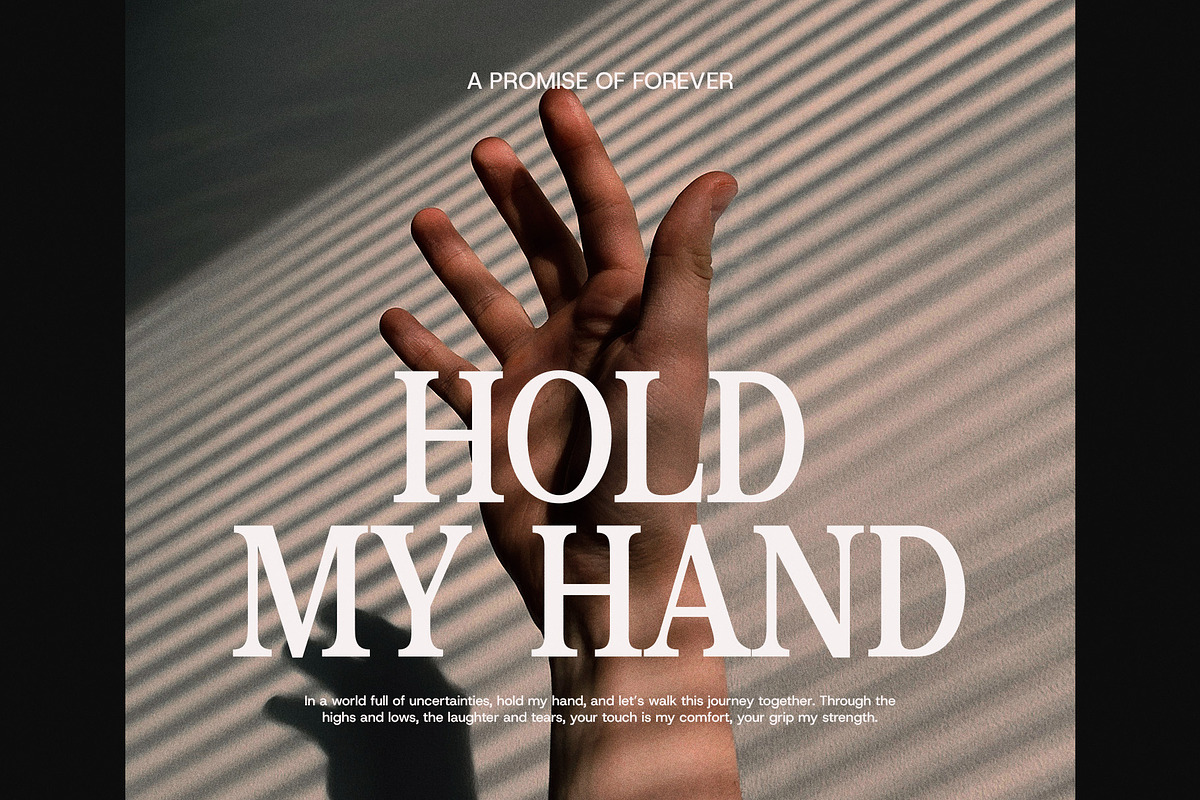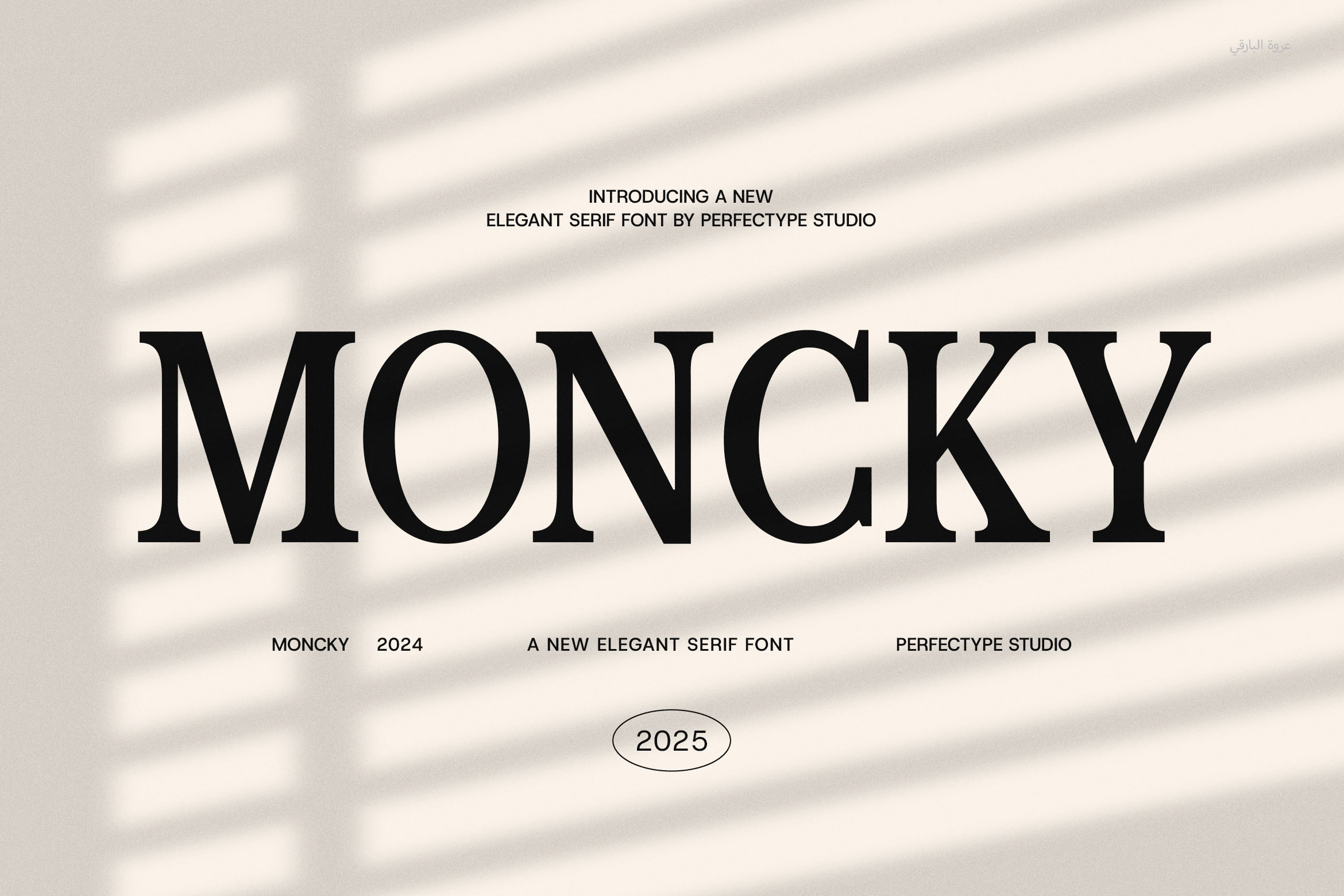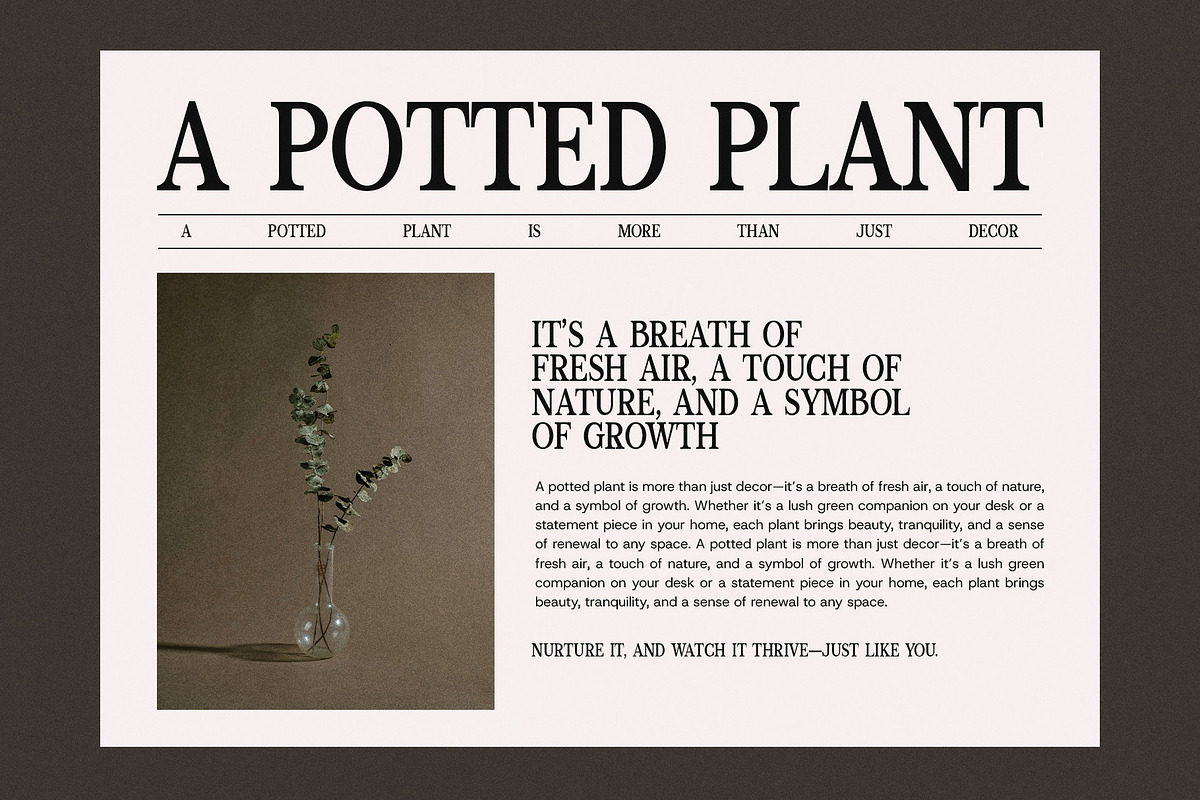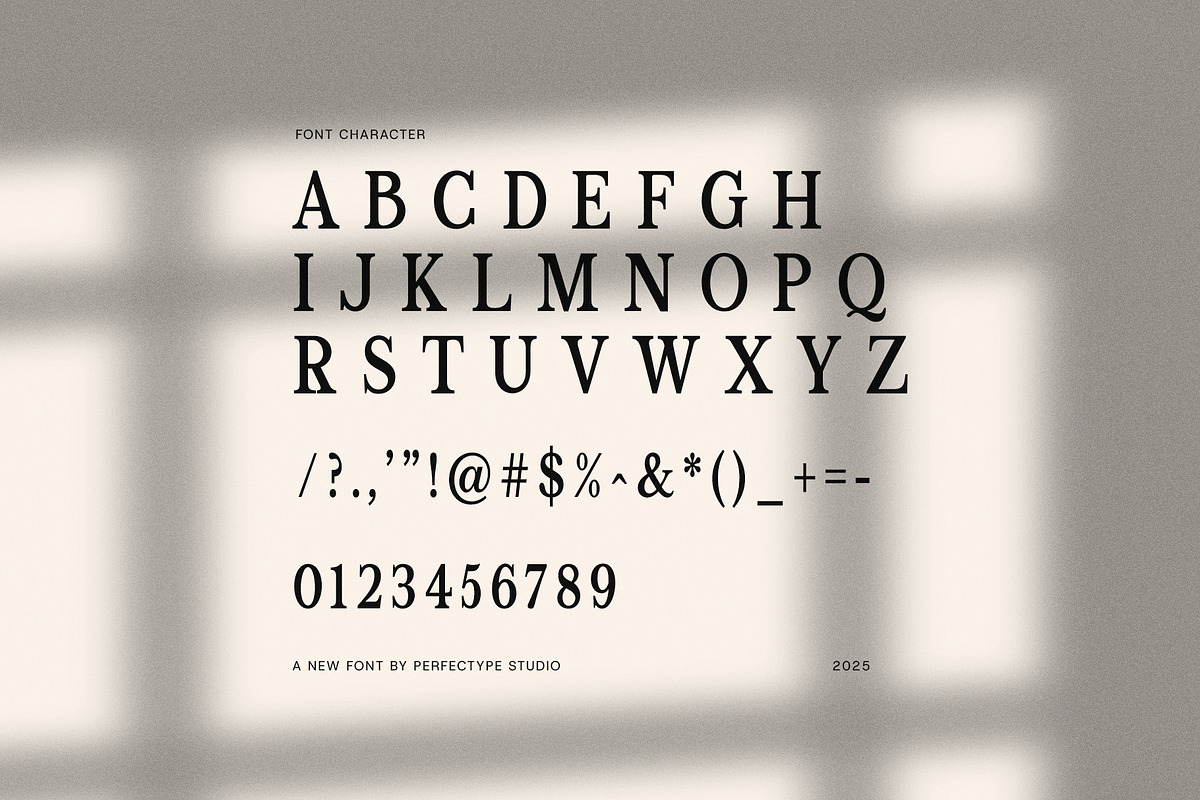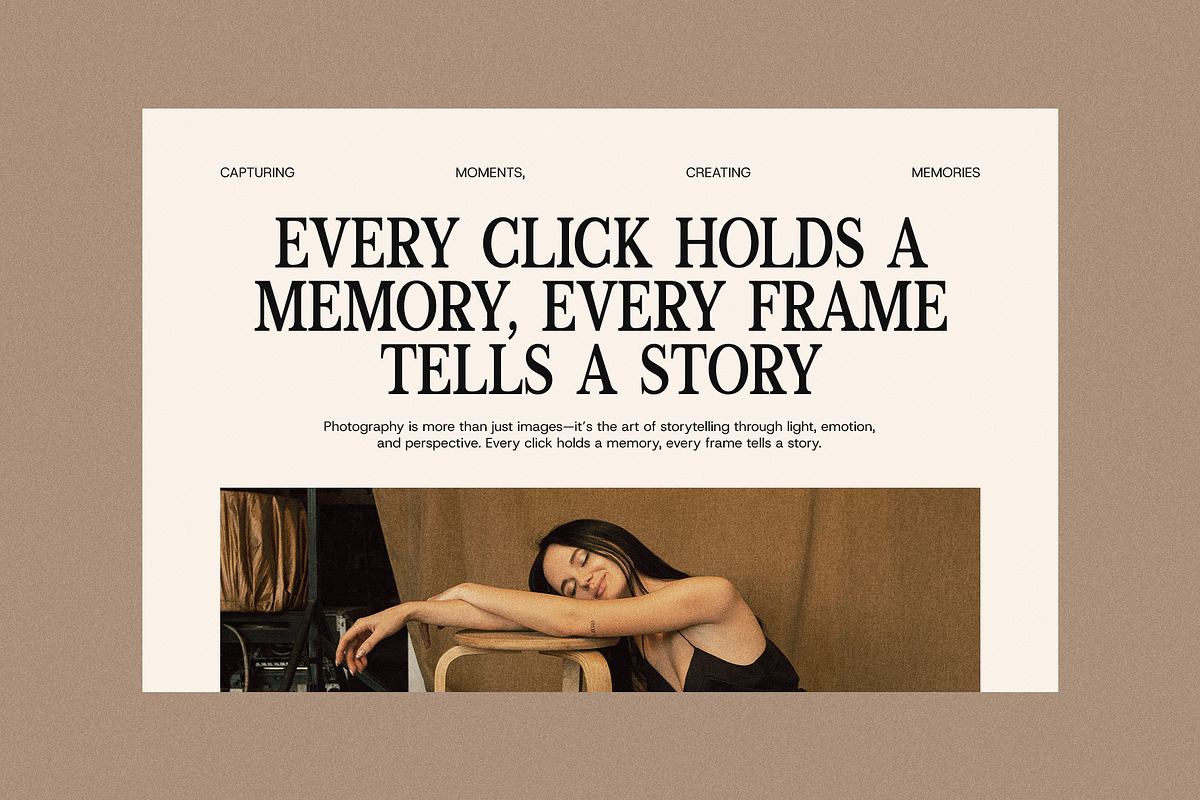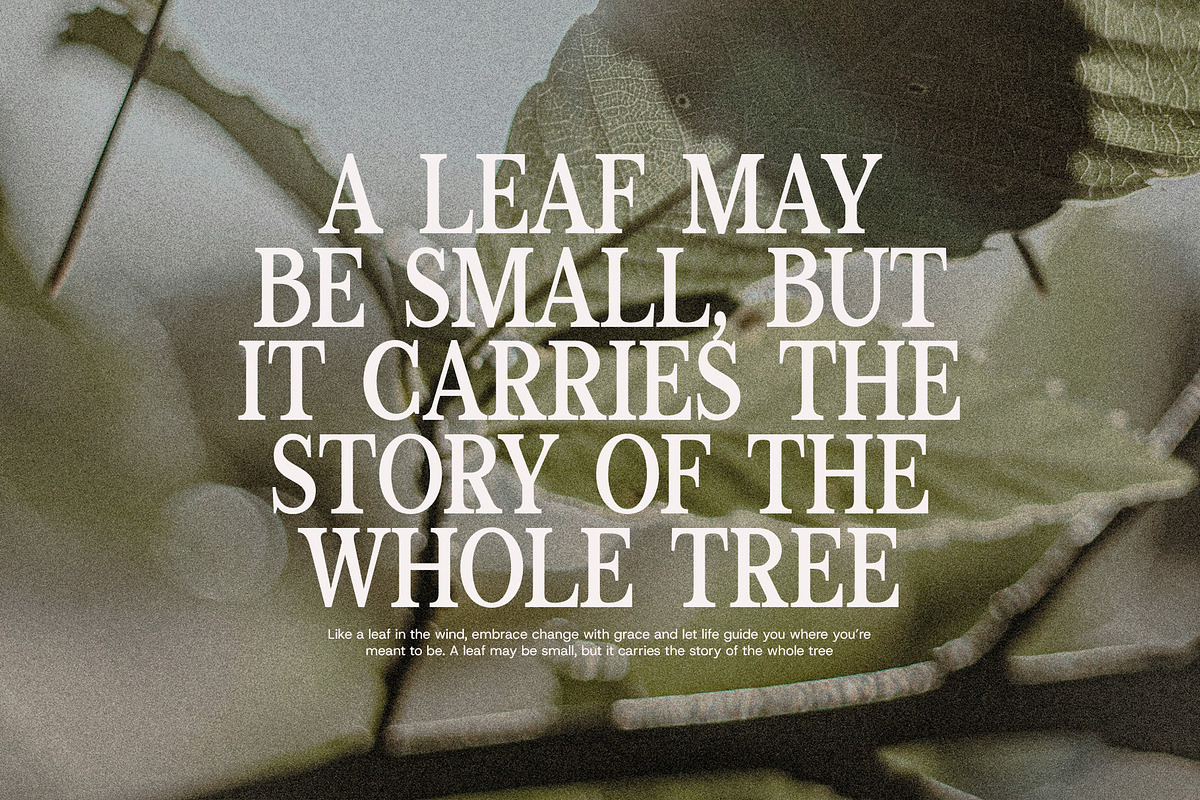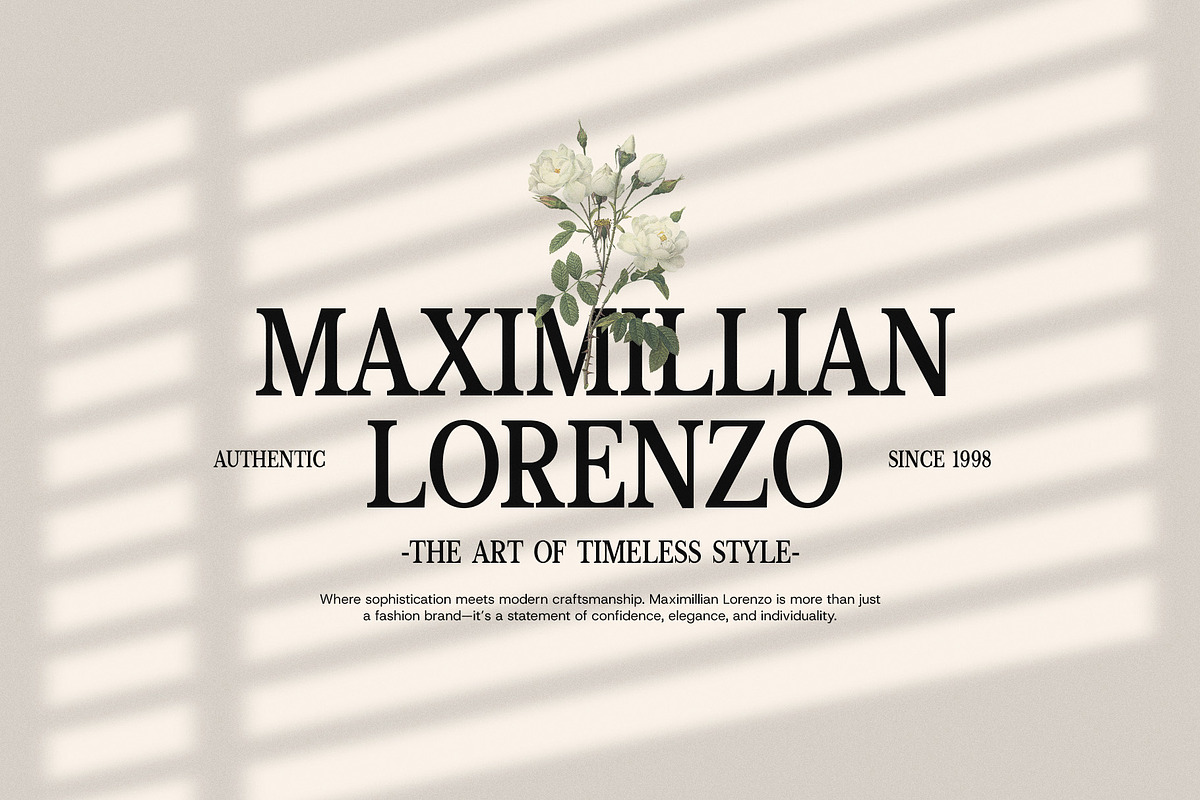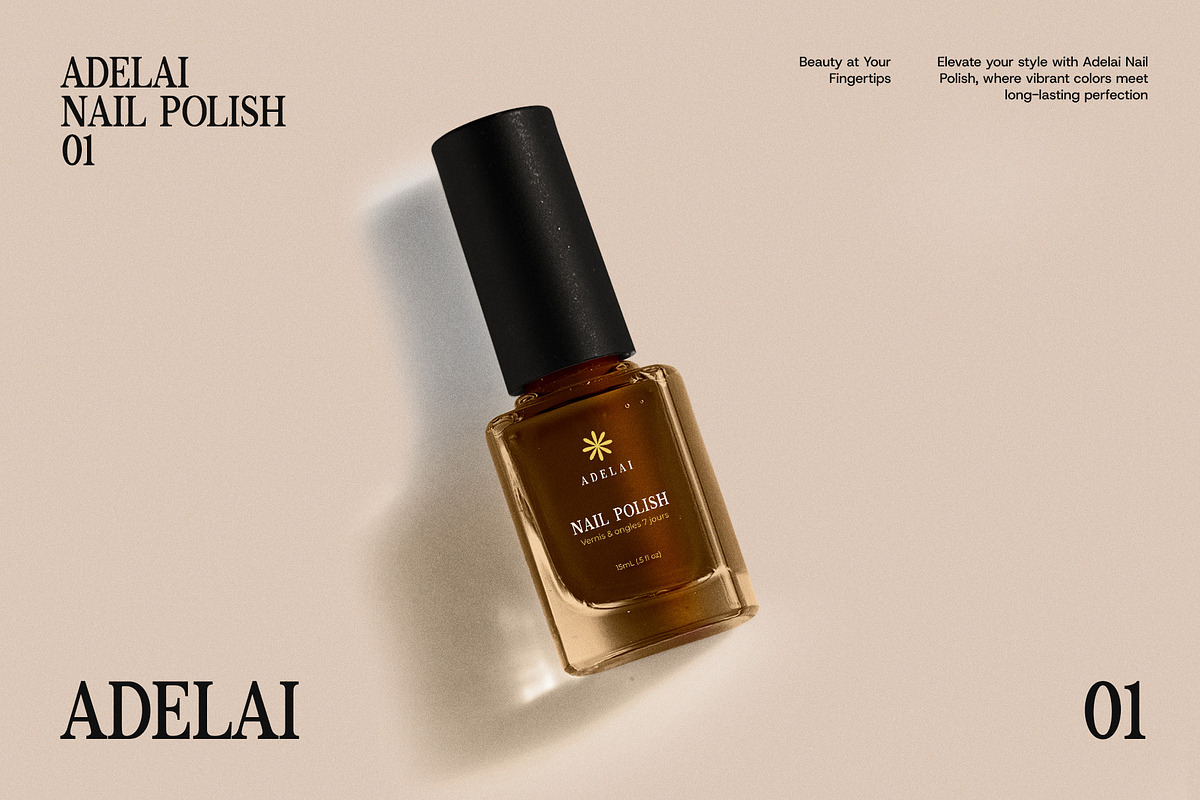
Moncky Modern Serif Font
Moncky Modern Serif Font – Clean Sophistication for Branding and Design
Introducing Moncky Modern Serif Font, a clean and stylish serif typeface designed to deliver a modern edge with classic appeal. Built with balanced proportions and smooth curves, Moncky brings elegance to any creative project—making it the ideal choice for brands that value sophistication and clarity.
With functional and tasteful ligatures, this serif font enhances your typography, creating flow and visual harmony. Whether you're designing a logo, magazine cover, website layout, or high-end packaging, Moncky adapts beautifully to both digital and print formats. It combines timeless elegance with a modern twist, helping your work stand out while remaining professional and versatile.
Use Moncky to elevate editorial content, enhance social media branding, or give your product packaging a high-end touch. It’s the perfect serif font for industries such as fashion, beauty, food, interior design, and more.
Why Choose Moncky Modern Serif?
Modern serif with clean, stylish lines
Functional ligatures for smoother text flow
Perfect for branding, packaging, websites, and editorial use
Professional yet elegant appearance
Easy to read at all sizes and on all devices